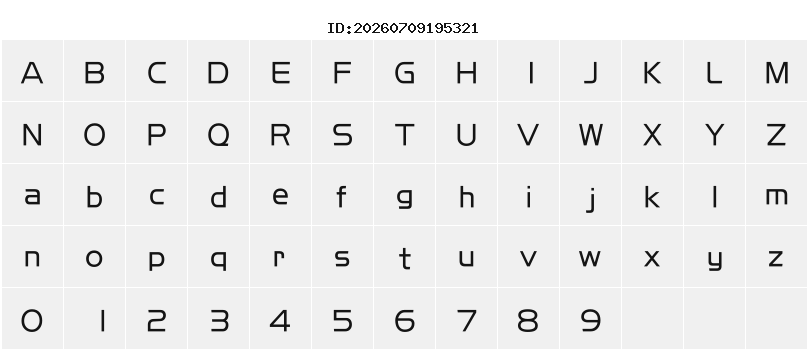
DFPHuaYiW4-B5 Preview
• Font Name: DFPHuaYiW4-B5
• Font ID: DFPHuaYiW4-B5
• Full Font Name: DFPHuaYiW4-B5
• Version: Version 3.00
• PostScript Name: DFHuaYi-W4-WINP-BF
• Character Count: 18589
About DFPHuaYiW4-B5.ttf
DFPHuaYiW4-B5.ttf is a modern, elegant sans-serif font designed for ultimate readability and visual harmony. Perfect for branding, headlines, web design, and print materials.